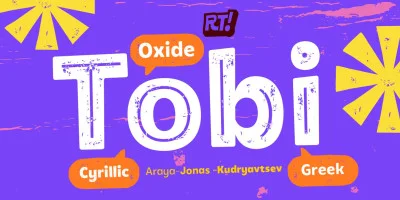
Tobi Oxide Font
Tobi Oxide Font is perfect for a wide range of design projects including industrial branding, grunge aesthetics, distressed logos, vintage posters, urban streetwear, music album covers, retro packaging, and edgy advertising campaigns. Its weathered character makes it an excellent choice for projects that require an authentic worn texture and raw, unpolished visual appeal.
What makes Tobi Oxide Font exciting is its remarkable ability to capture genuine aging and oxidation effects that add instant character and history to any design. The font features organically distressed letterforms with realistic texture variations that mimic natural wear and corrosion, creating an authentic vintage atmosphere. Its rugged personality brings depth and tactile quality to projects, making them feel lived-in, authentic, and visually compelling.
Tobi Oxide Font comes in multiple font families including Regular, Bold, Light, Extra Distressed, Clean, and various texture variations. These diverse options provide designers with complete creative control to adjust the level of weathering and visual intensity while maintaining a cohesive rustic aesthetic throughout their work.
When your project needs a typeface that tells a story through texture and time, Tobi Oxide Font delivers the authentic distressed quality and visual richness you're seeking. The font's weathered aesthetic excels in display applications, headline treatments, and any design that benefits from a vintage, handcrafted feel that connects with audiences seeking genuine, character-filled typography.